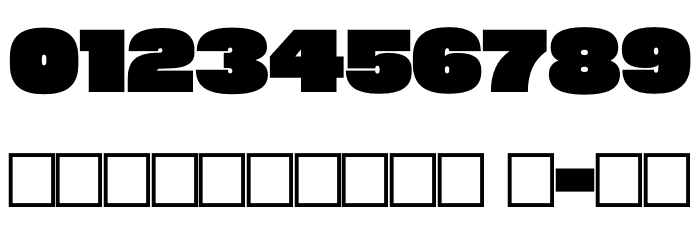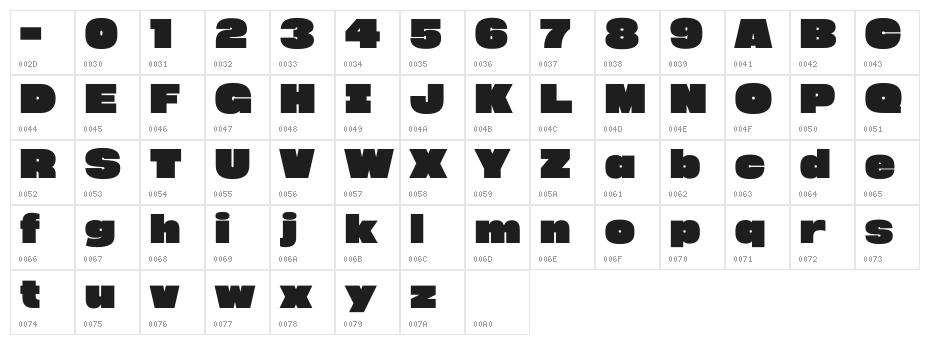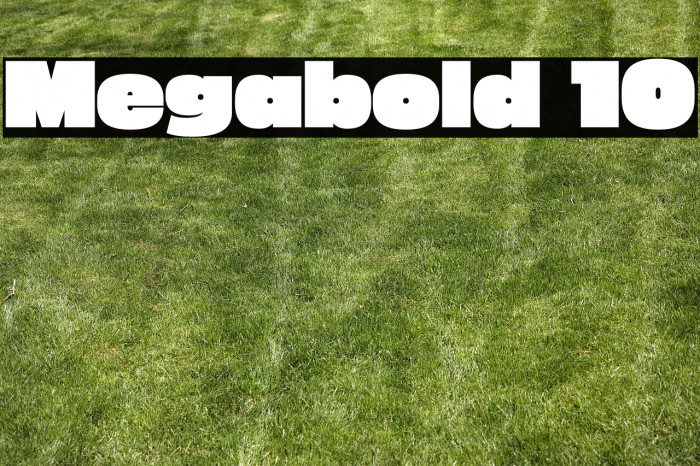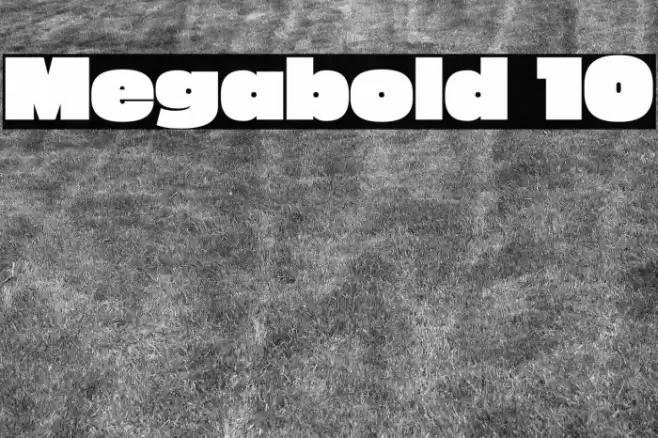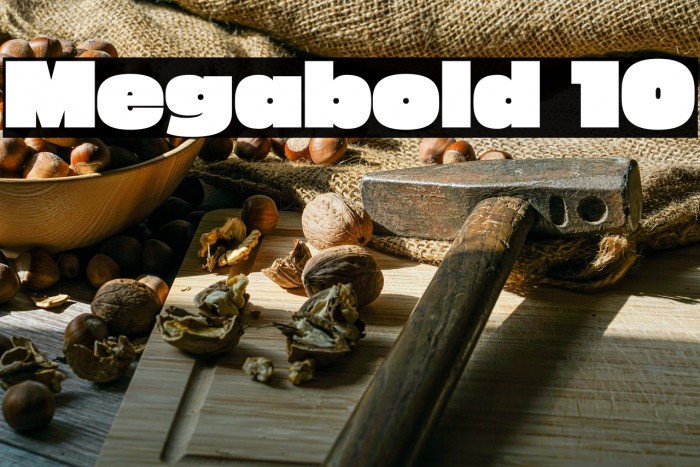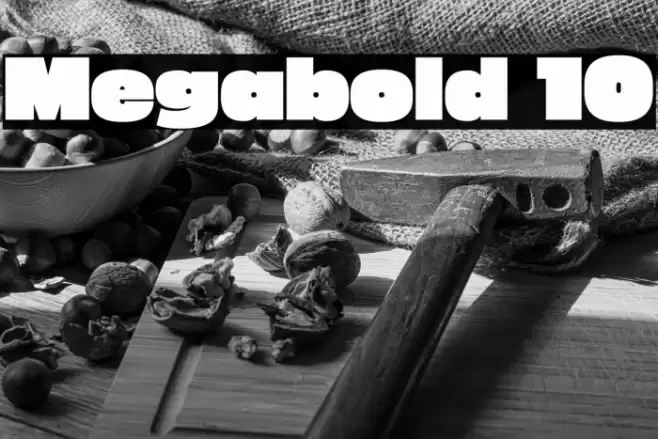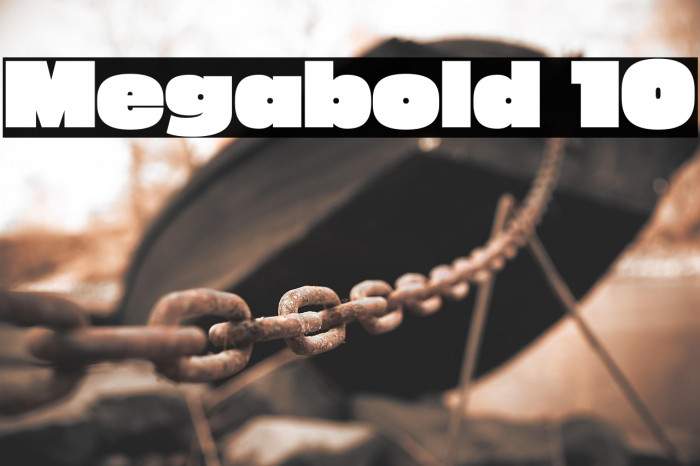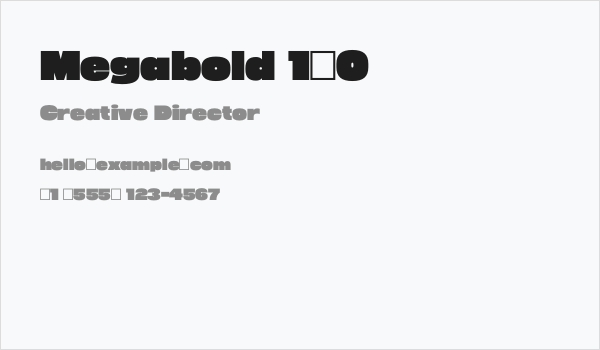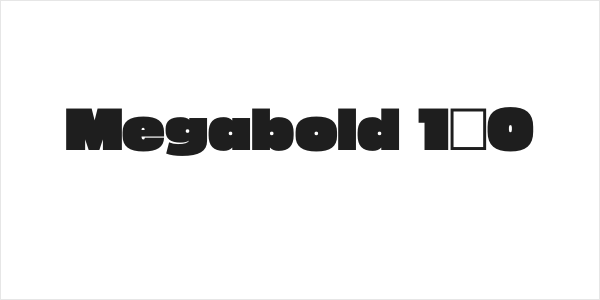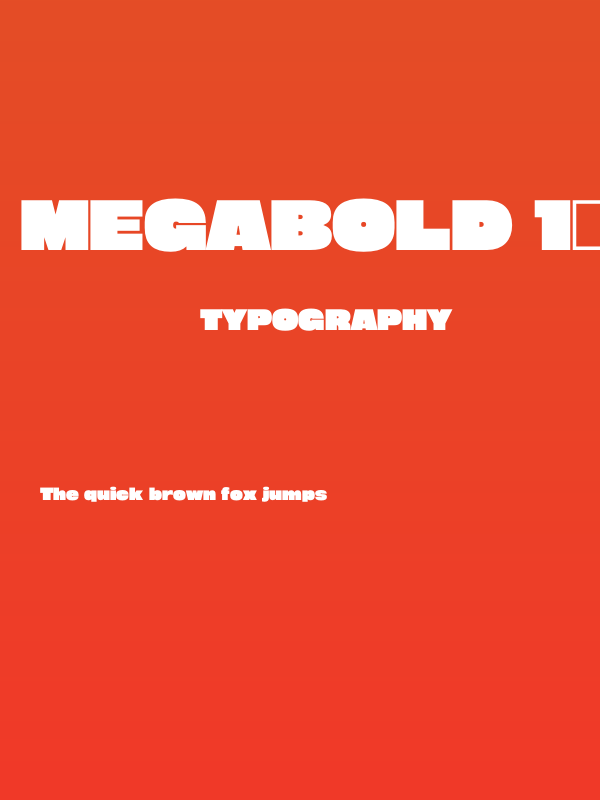
Megabold 1.0 Font
Megabold 1.0 Description
This font is characterized by its extremely bold and heavy appearance, making it ideal for impactful and attention-grabbing designs. The letters are uniformly thick, with minimal contrast between strokes, giving it a strong and solid look. The uppercase and lowercase letters are consistent in style, maintaining a cohesive and powerful aesthetic. The numbers and special characters follow the same bold design, ensuring uniformity across all elements. This font is perfect for projects that require a strong visual presence.
| Proposed Projects | This font is suitable for headlines, posters, logos, and any design that needs to make a strong visual statement. |